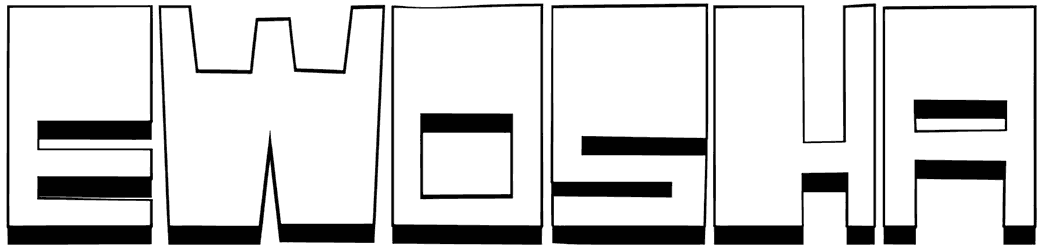
Ewosha Font
If you are looking for a powerful techno font that will take you entirely out of the repetition cycle, get your hands on Ewosha. This groovy font, which does not include small letters and numbers, has very thick letters designed in a cartoonish way.
The primary and simple details in this outline font have created a sense of joy and boldness, which can convey your brand’s voice in the loudest possible way in logos, posters, and kids’ projects.